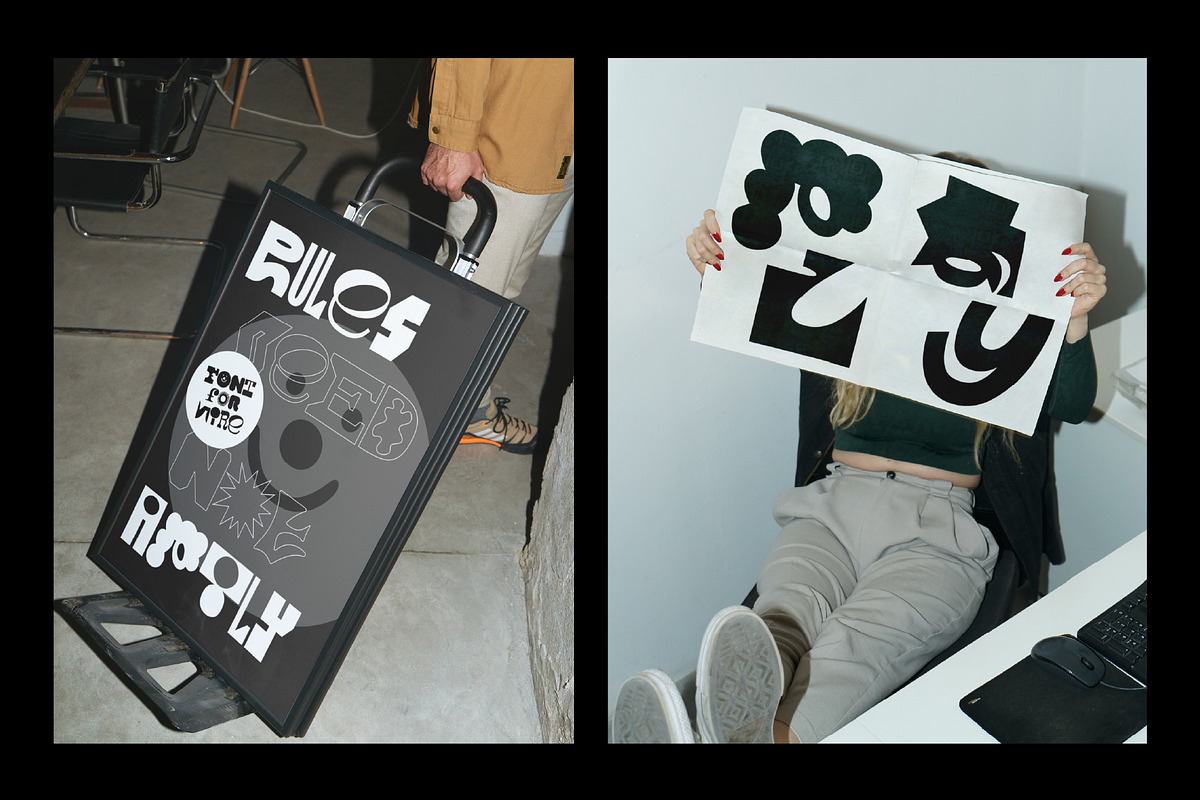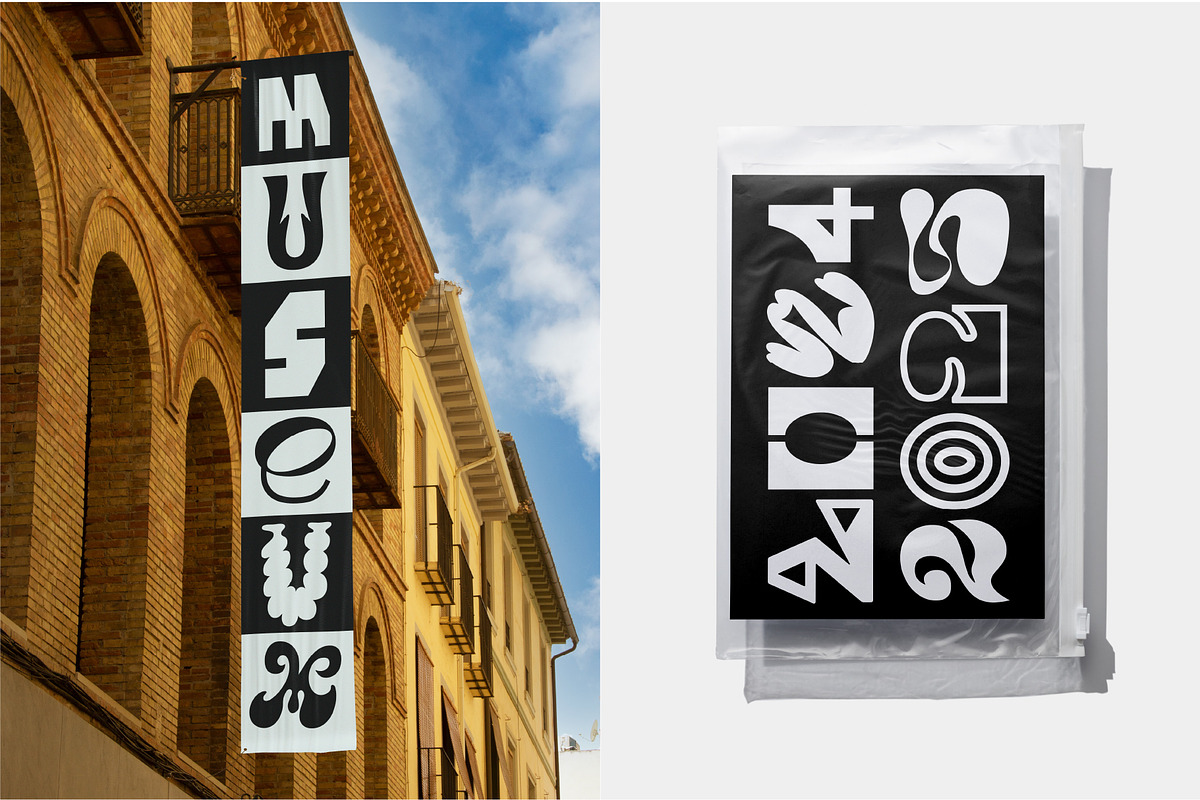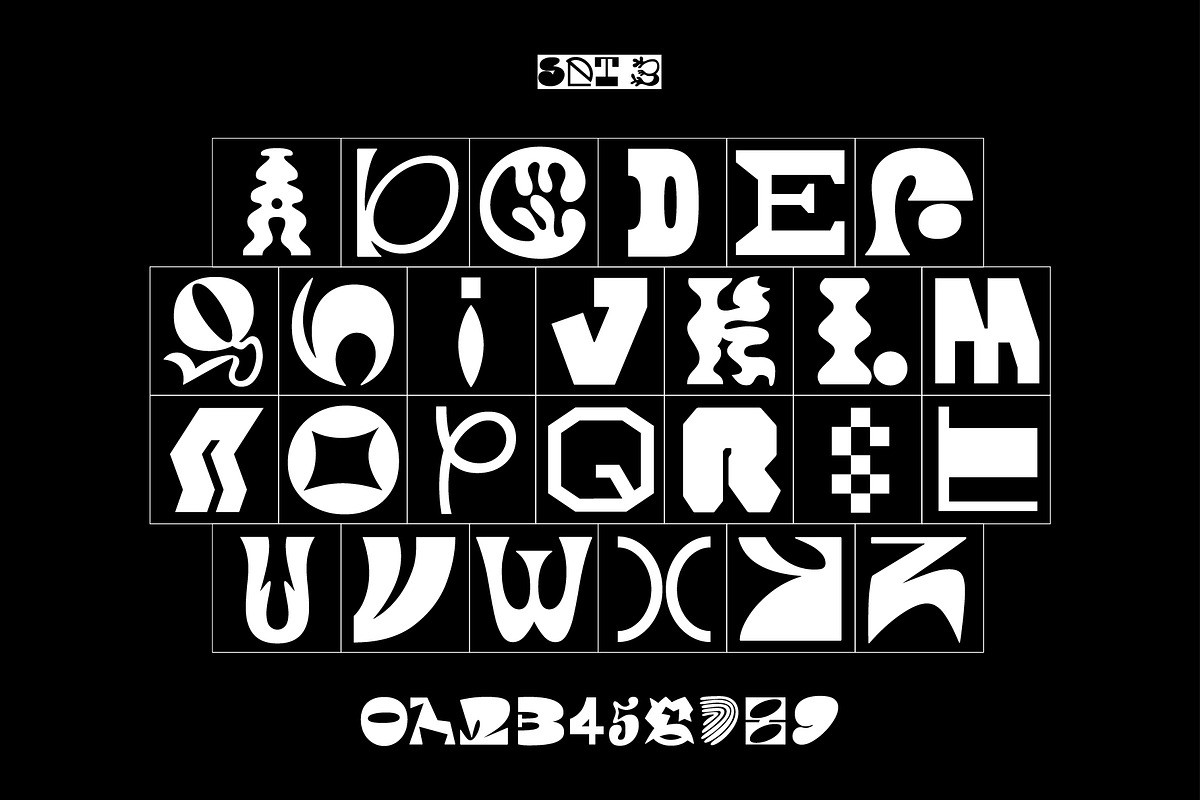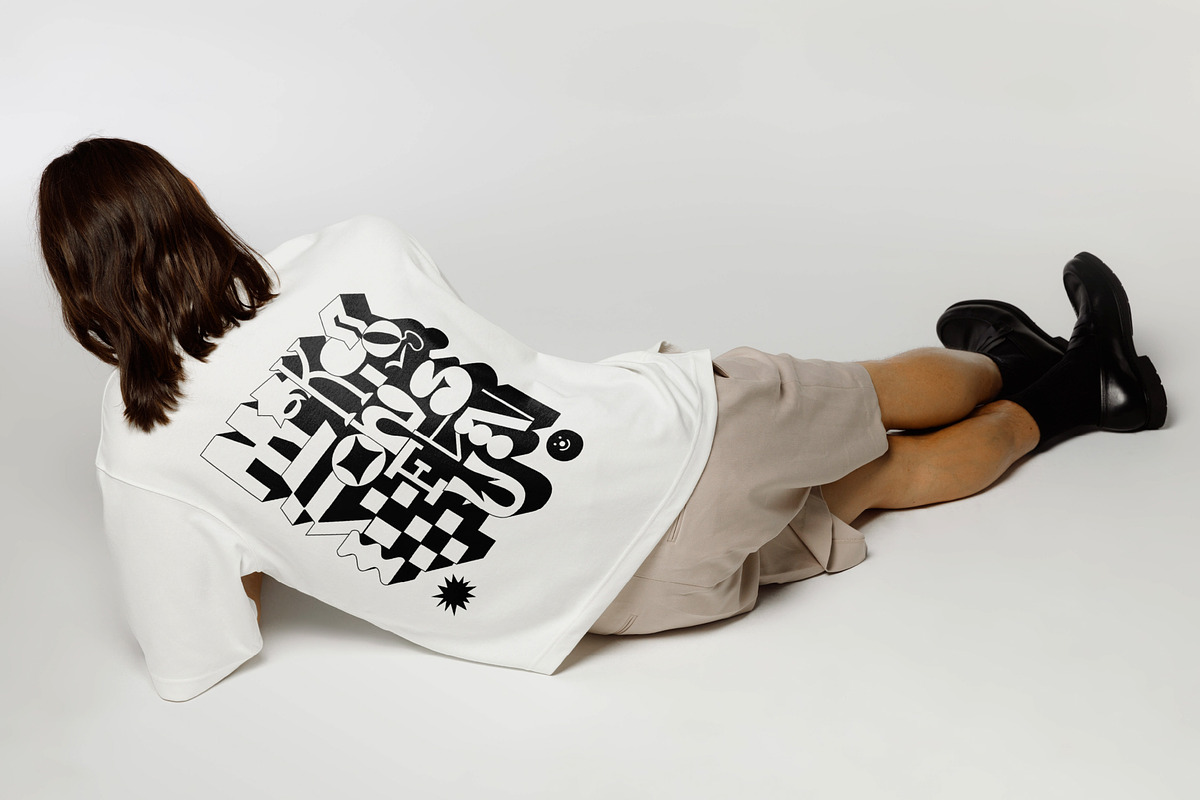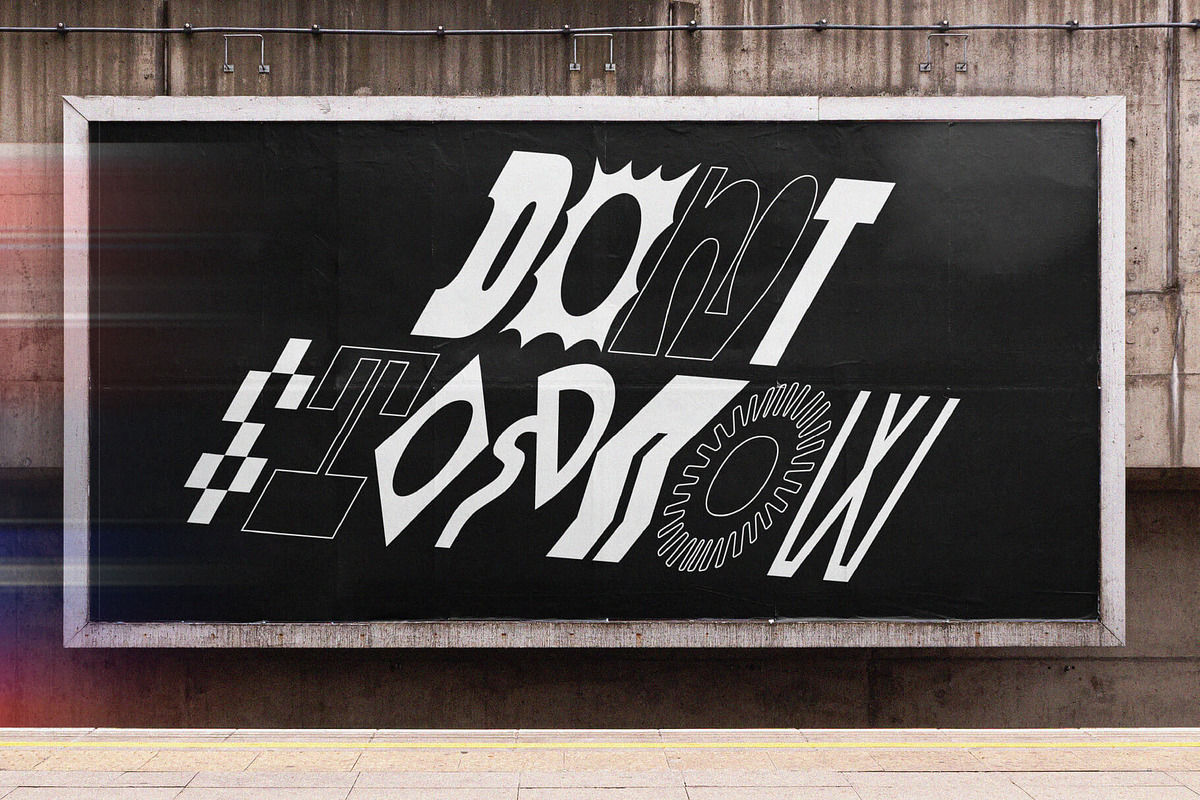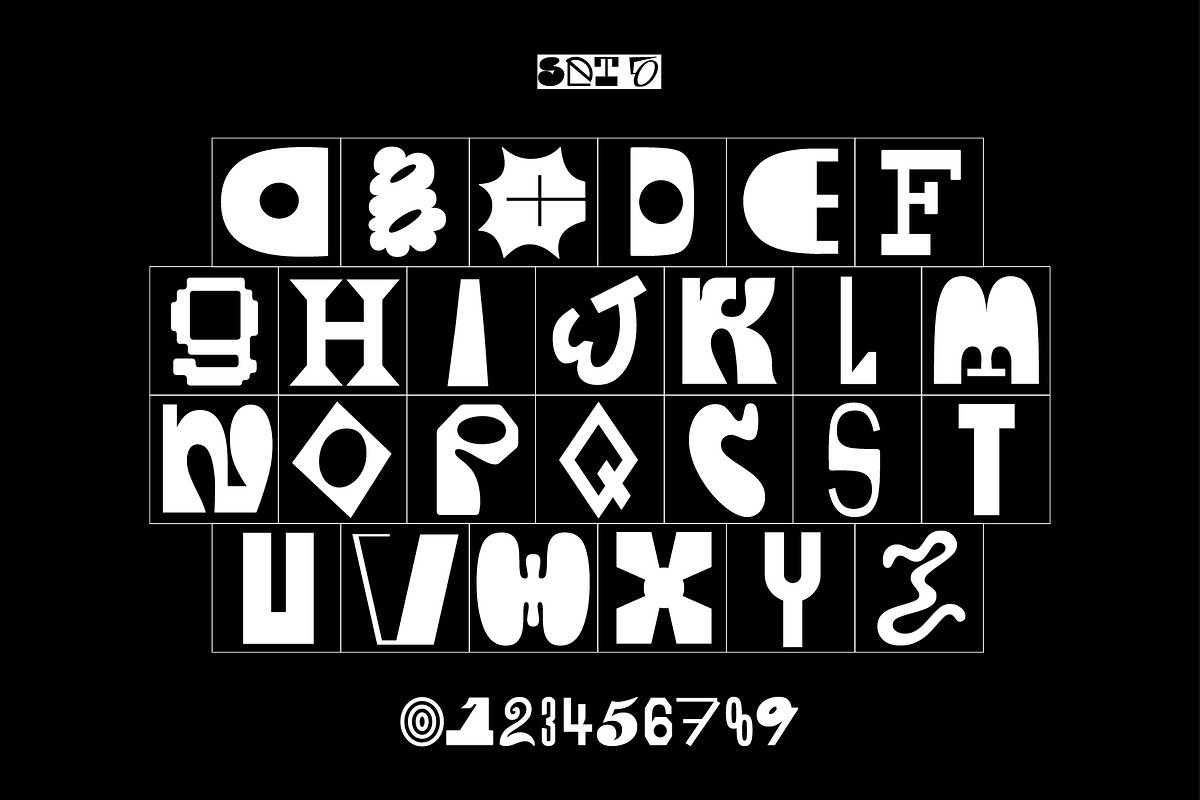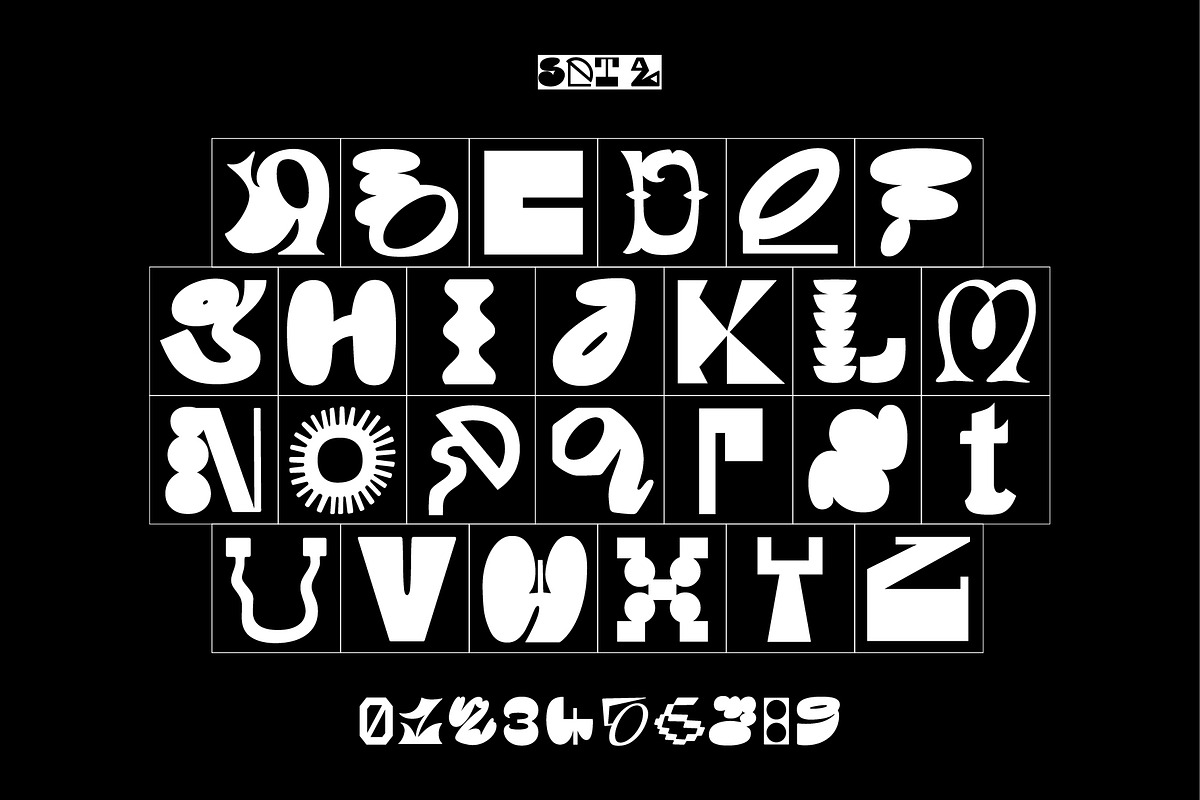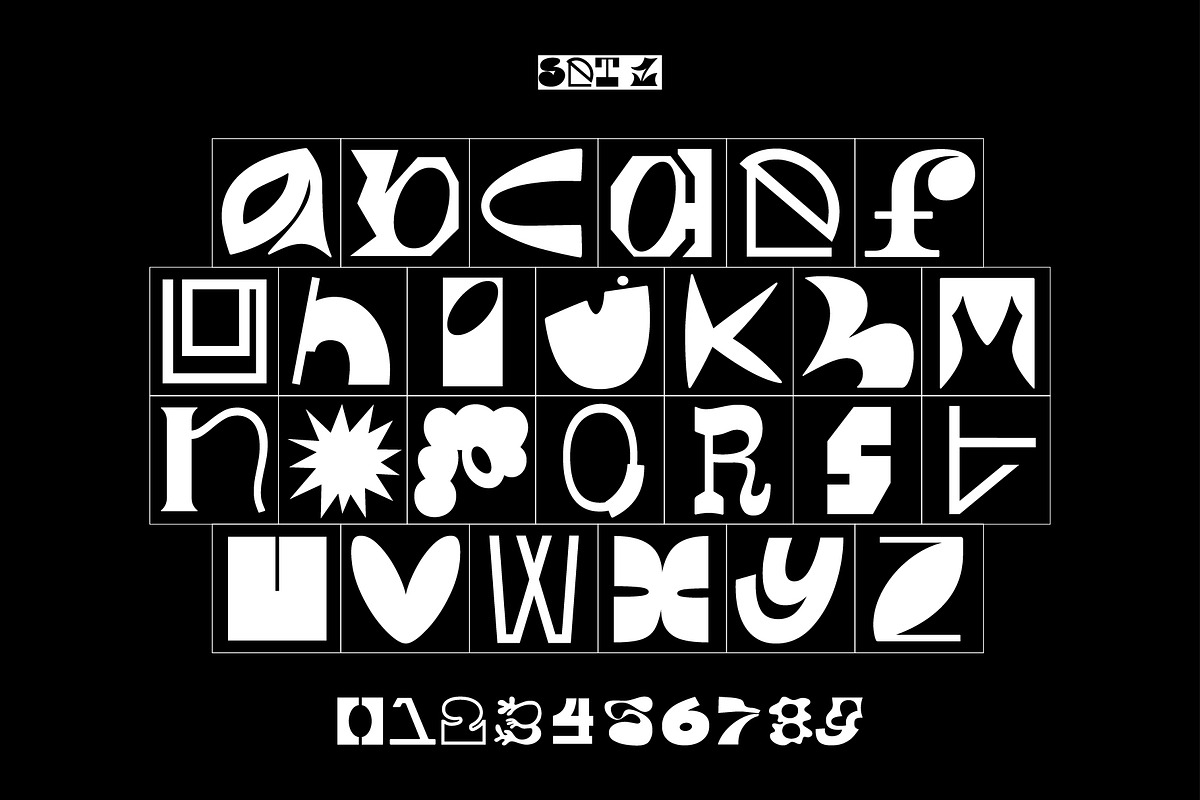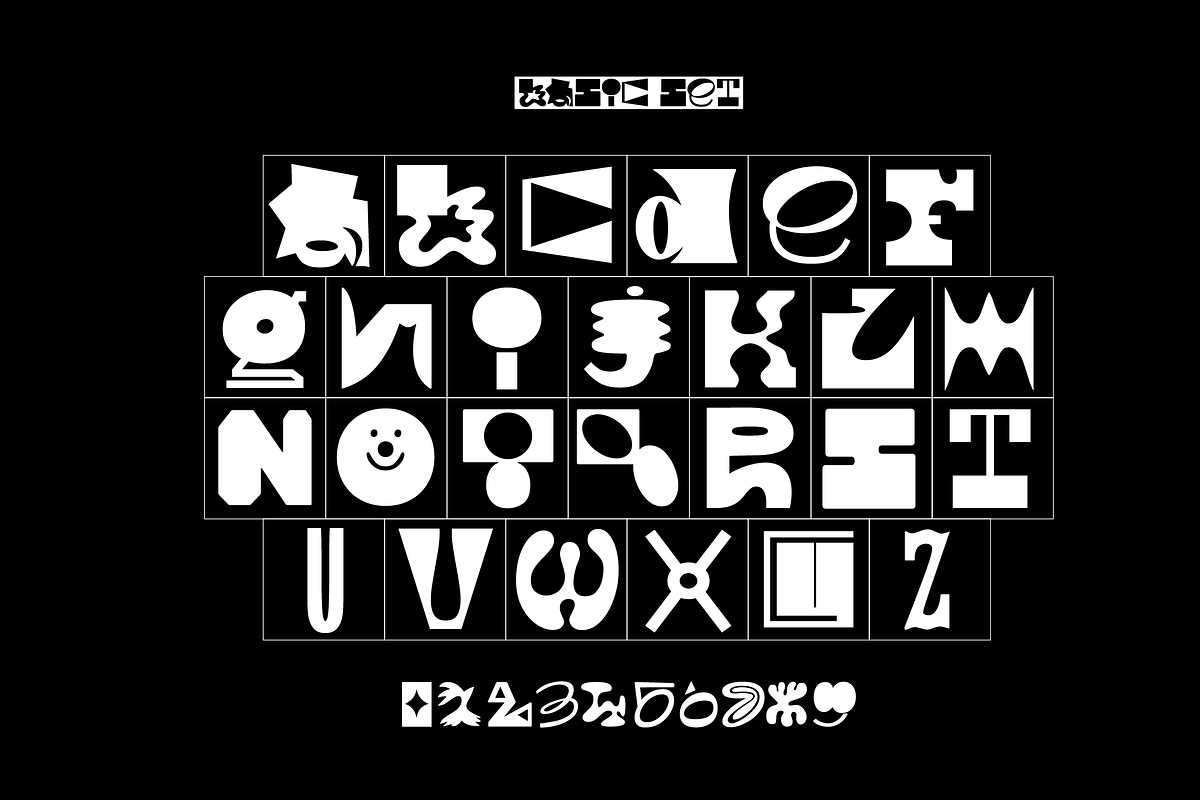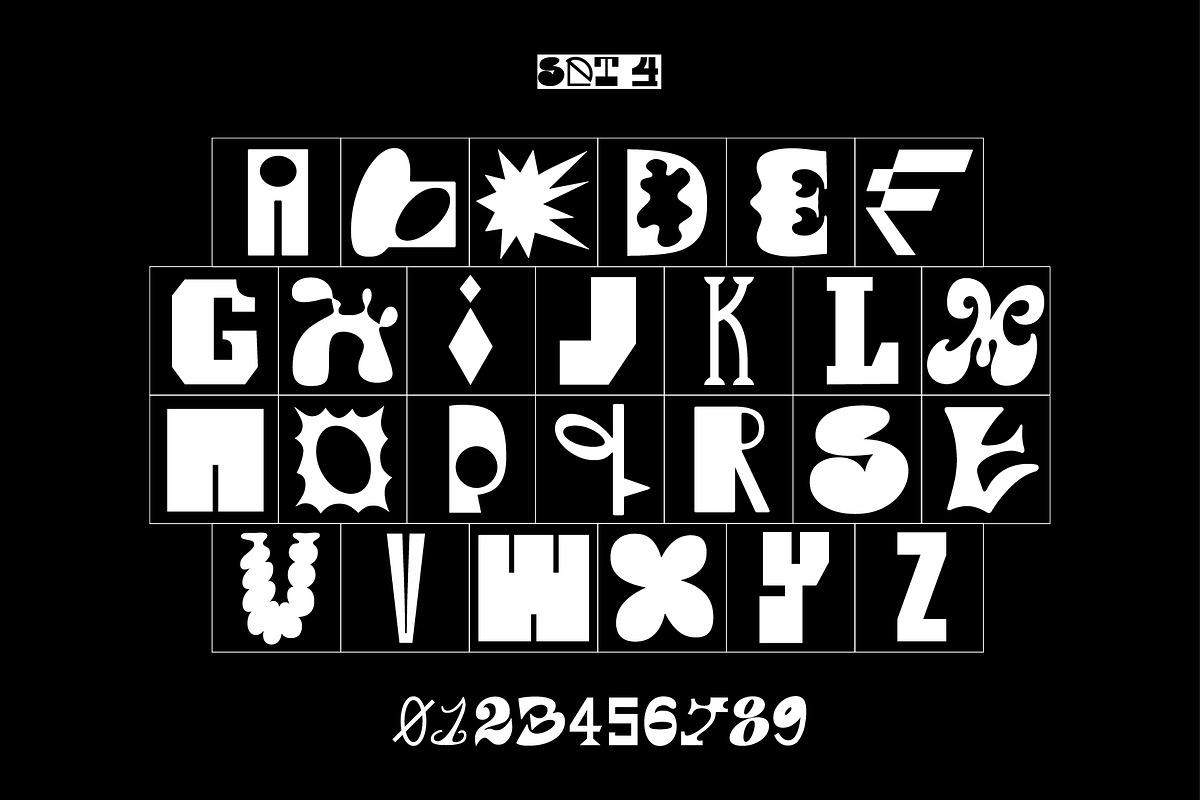
Allsorts (Quirky Display Font)
Allsorts is a super playful, super fun, super bold, modern display font. Perfect if you are looking for something a lil' quirky for a logo design or branding project, for instagram, a headline font for a magazine, or whatever takes your fancy. Code has been added to the font so that it randomises a lil' as you type (with contextual alternates activated). For example, if you typed out 6 'A's' they would all be different. There are five stylistic sets, so there are loads of possibilities to use Allsorts in your own way!